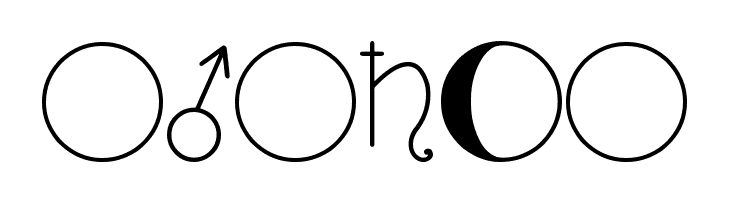
Astro Font
A font featuring astrological and astronomical symbols with a clean, precise style.
Astro Space Font
Font by wepfont - Wahyu Eka Prasetya - Personal-use only. For commercial use please contact owner.
A bold, futuristic font with geometric and angular letterforms.
Astronaut II Font
Font by www.fontalicious.com
A futuristic, pixelated font with a digital, geometric design.
Astro-867 Font
Font by Caffeen Fonts - www.swank.ca/caffeen/fonts/
A futuristic, bold, and geometric font with rounded characters.
Astrolyte Font
Font by dustBUST - Andreas Nylin
A futuristic, geometric font with angular letterforms and consistent stroke width.
Astrological Font
Font by Peter Rempel - www.prfonts.com
A decorative icon font with astrological and mystical symbols.
Astronaut III Font
Font by www.fontalicious.com
A futuristic, pixelated font with a bold, geometric design.
Slice Font
A modern sans-serif font with geometric shapes and uniform stroke width.
Astronomus Font
Font by Patria Ari Typestudio - Patria Ari - Personal-use only. For commercial use please contact owner.
A bold, geometric font with a futuristic and technical style.
Dubtronic Solid Font